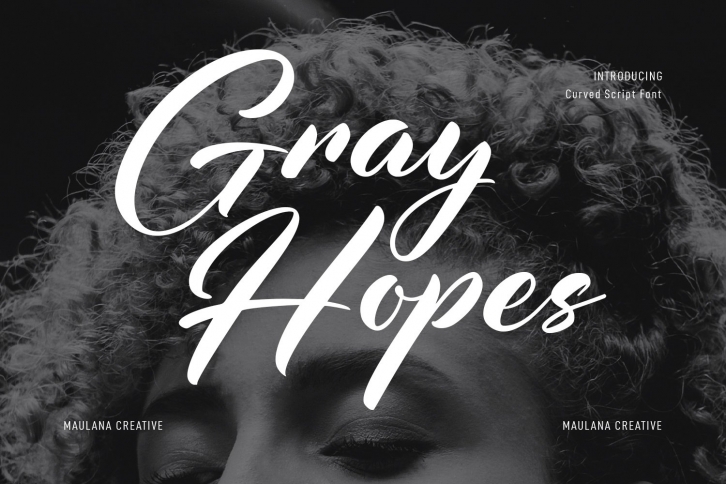
Gray Hopes Script is a great font that was designed by Maulana Creative. Imagine the amount of combinations you can create using this font! The archive is 15.24 MB and it was released on October 16, 2022. Gray Hopes Script looks beautiful on wedding invitations, greeting cards, logos, posters, labels, t-shirt designs, logos, business cards and is perfect for use in ink or watercolor works, fashion, magazines, packaging and food menus, children's books and more!